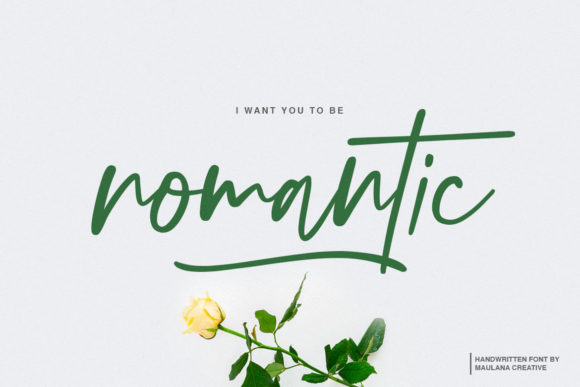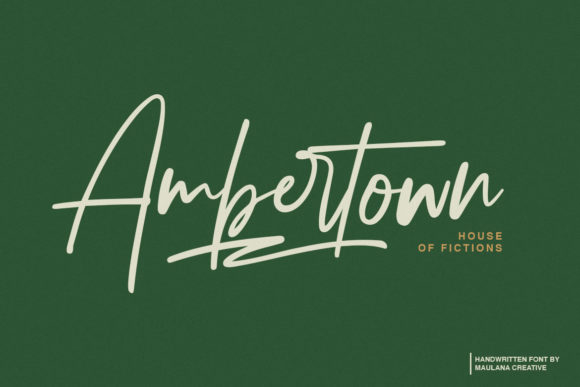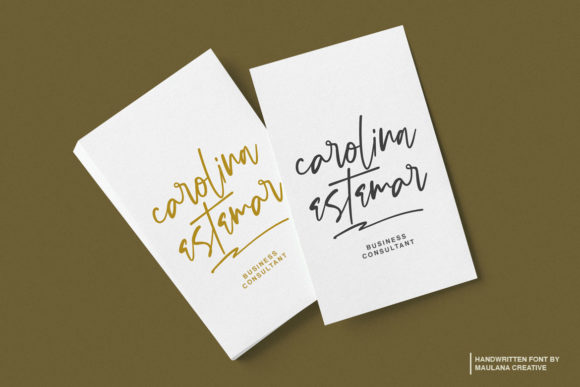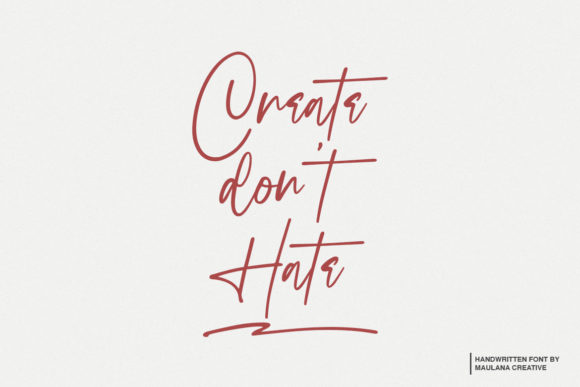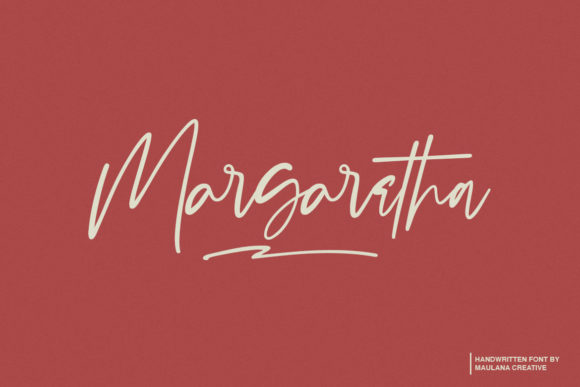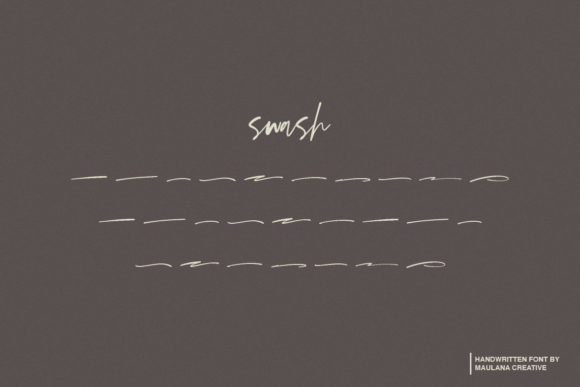
Introducing Ambyttion Font: The Ultimate Playful Script Font for Your Designs
Are you a designer or crafter looking for a font that can add a touch of romance and elegance to your creations? Look no further than Ambyttion Font! This stunning script font features luscious swashes and a playful vibe that’s perfect for a wide range of design projects. In this article, we’ll take a closer look at Ambyttion Font, its features, and how you can use it to elevate your designs.
What is Ambyttion Font?
Ambyttion Font is a beautiful script font that’s designed to add a romantic touch to your designs. Its luscious swashes and flowing lines make it perfect for creating elegant and sophisticated designs. Whether you’re working on a wedding invitation, a branding project, or a digital graphic, Ambyttion Font is sure to make your designs stand out.
Key Features of Ambyttion Font
- Playful and Gorgeous Design: Ambyttion Font features a playful and gorgeous design that’s perfect for adding a touch of whimsy to your designs.
- Luscious Swashes: The font features luscious swashes that add a touch of elegance and sophistication to your designs.
- Romantic Touch: Ambyttion Font is designed to add a romantic touch to your designs, making it perfect for wedding invitations, Valentine’s Day designs, and other romantic-themed projects.
- High-Quality Design: The font is designed with high-quality craftsmanship, ensuring that it looks great in any design.
How to Use Ambyttion Font in Your Designs
Ambyttion Font is a versatile font that can be used in a wide range of design projects. Here are some ideas for using Ambyttion Font in your designs:
- Wedding Invitations: Ambyttion Font is perfect for wedding invitations, adding a romantic touch to your designs.
- Branding Projects: Use Ambyttion Font to create elegant and sophisticated branding projects, such as logos, business cards, and letterheads.
- Digital Graphics: Ambyttion Font is great for digital graphics, such as social media graphics, blog posts, and website headers.
- Crafting Projects: Ambyttion Font can also be used in crafting projects, such as scrapbooking, card making, and DIY projects.
Tips for Getting the Most Out of Ambyttion Font
Here are some tips for getting the most out of Ambyttion Font:
- Experiment with Different Sizes: Ambyttion Font looks great in a variety of sizes, so experiment with different sizes to find the one that works best for your design.
- Pair with Other Fonts: Ambyttion Font pairs well with other fonts, so try pairing it with a sans-serif font for a contrasting look.
- Use Swashes Creatively: The swashes in Ambyttion Font are a great feature, so use them creatively to add a touch of elegance to your designs.
Ambyttion Font is a stunning script font that’s perfect for adding a romantic touch to your designs. Its luscious swashes and playful vibe make it a great choice for a wide range of design projects, from wedding invitations to branding projects. With its high-quality design and versatility, Ambyttion Font is sure to become a favorite in your design arsenal.